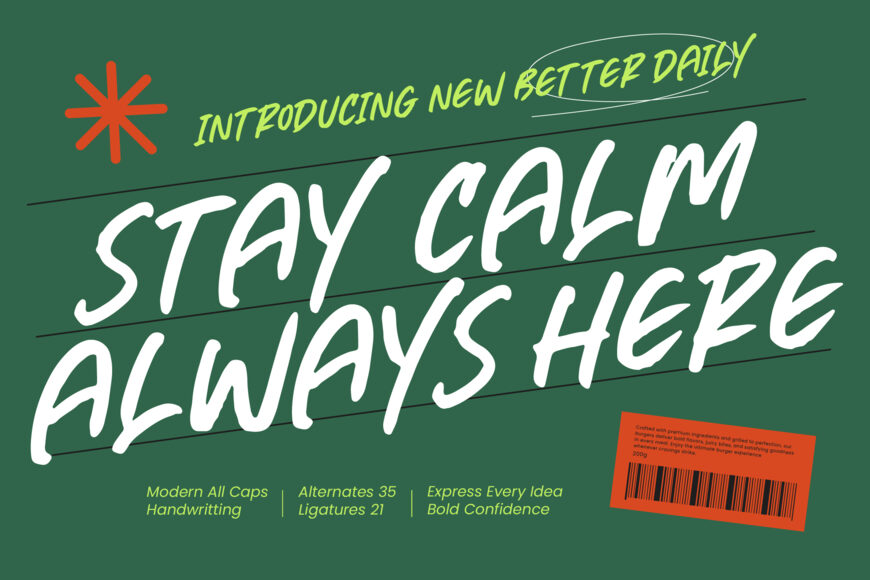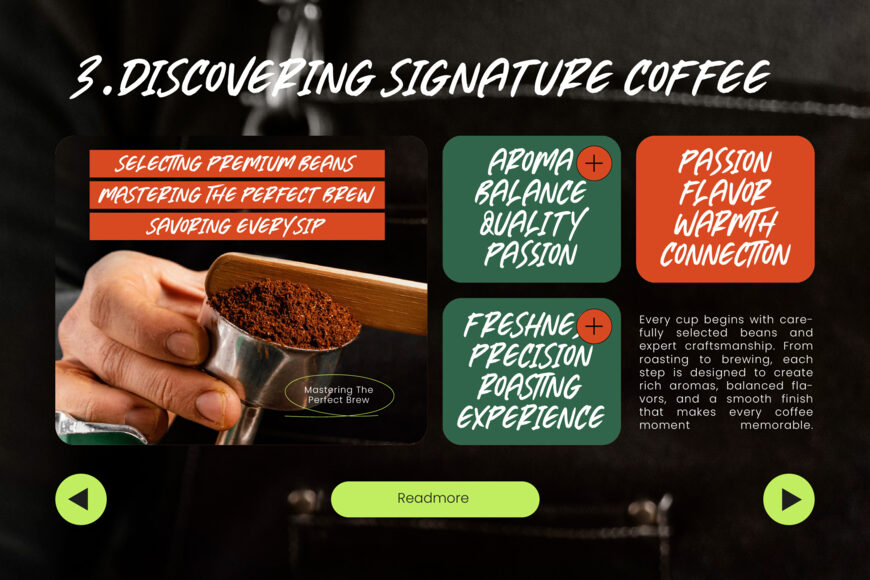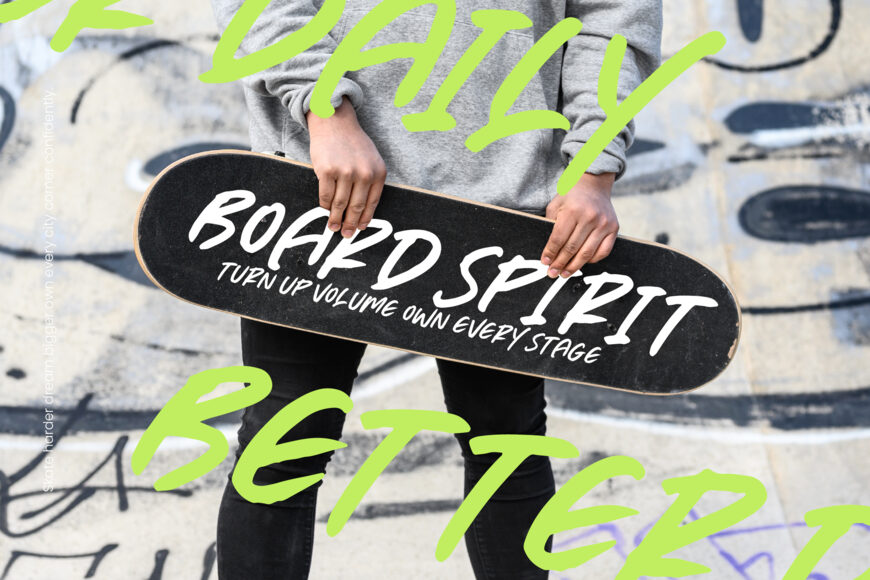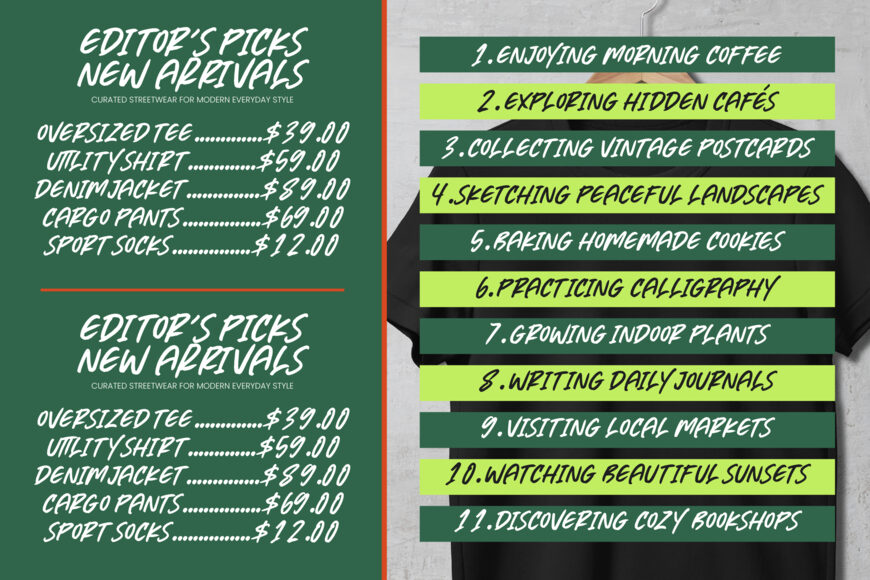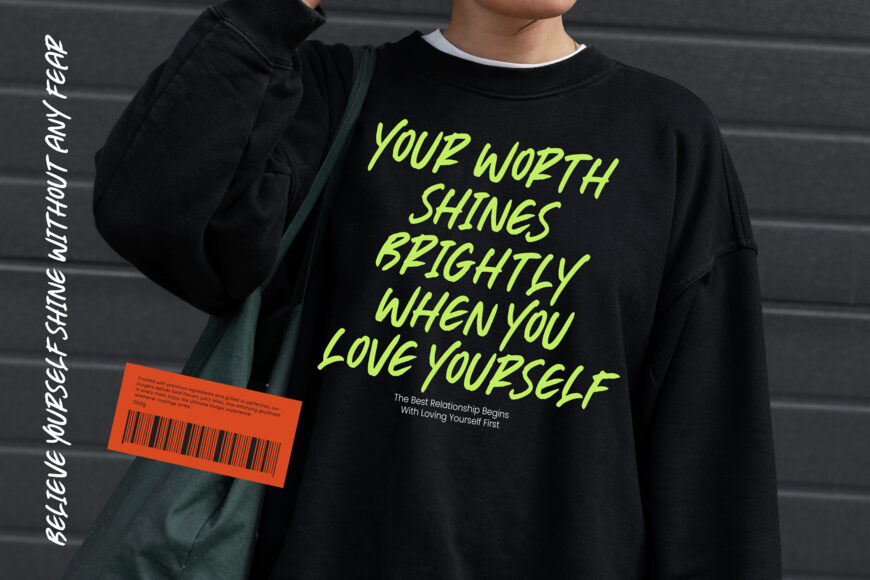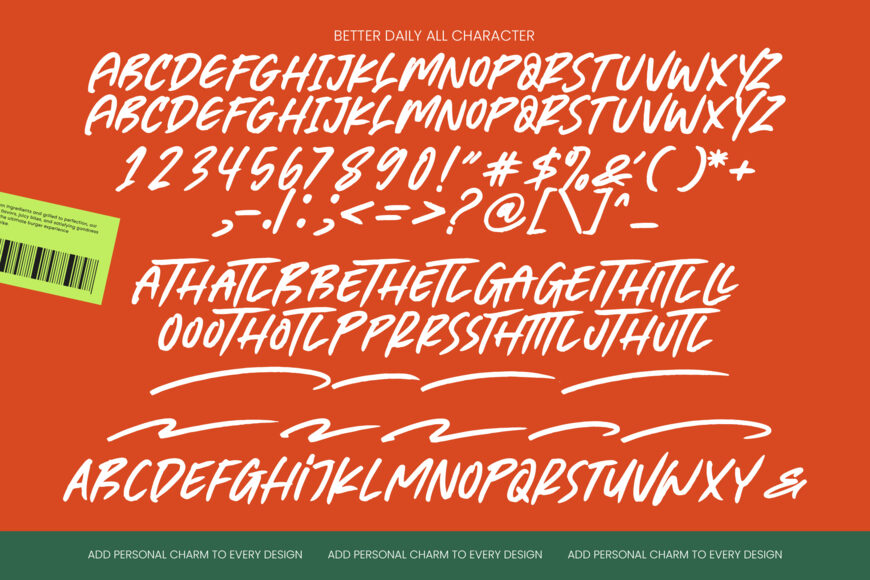
Elevate your brand with the modern, all-caps handwriting font, Better Daily. Its raw energy and effortless style capture the essence of contemporary brush lettering, offering a dynamic, personal, and professional aesthetic. With custom ligatures and multilingual support, this versatile font is perfect for various applications, from urban branding to social media marketing, and helps create a lasting impression on your audience.